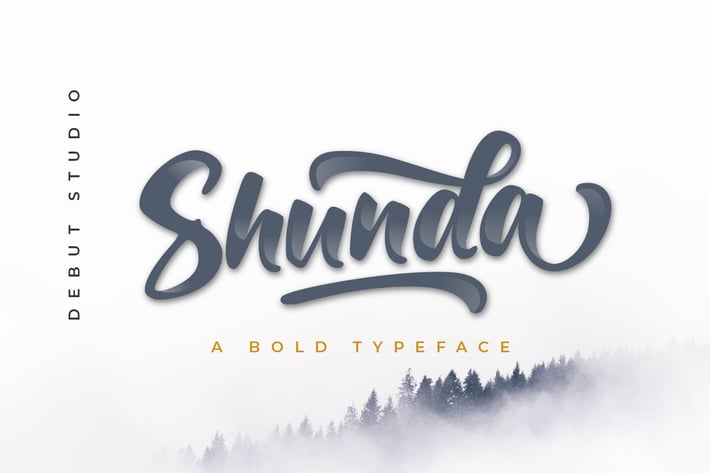
Shunda Typeface
Debut Studio presents the latest font Shunda Typeface, This font is perfect for design purposes such as lovely design for wedding, crafting, posters, business cards, and others.
Standard ligatures and alternate stylistic